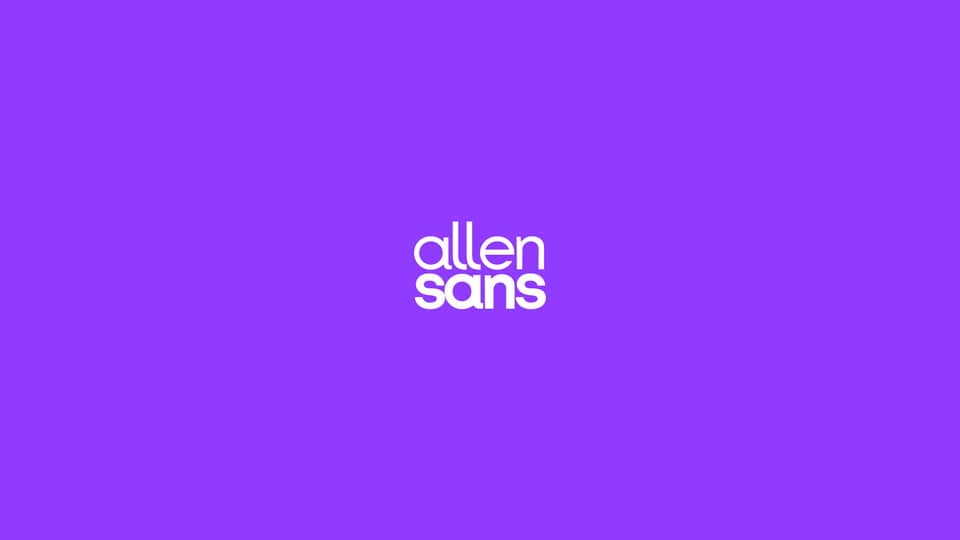
Download Allen Sans font, an original sans serif typeface inspired by the very illustrious sans-serif forerunners such as Helvetica, Futura, Avant Garde Gothic and Gill Sans.
Designer: Ashani Allen